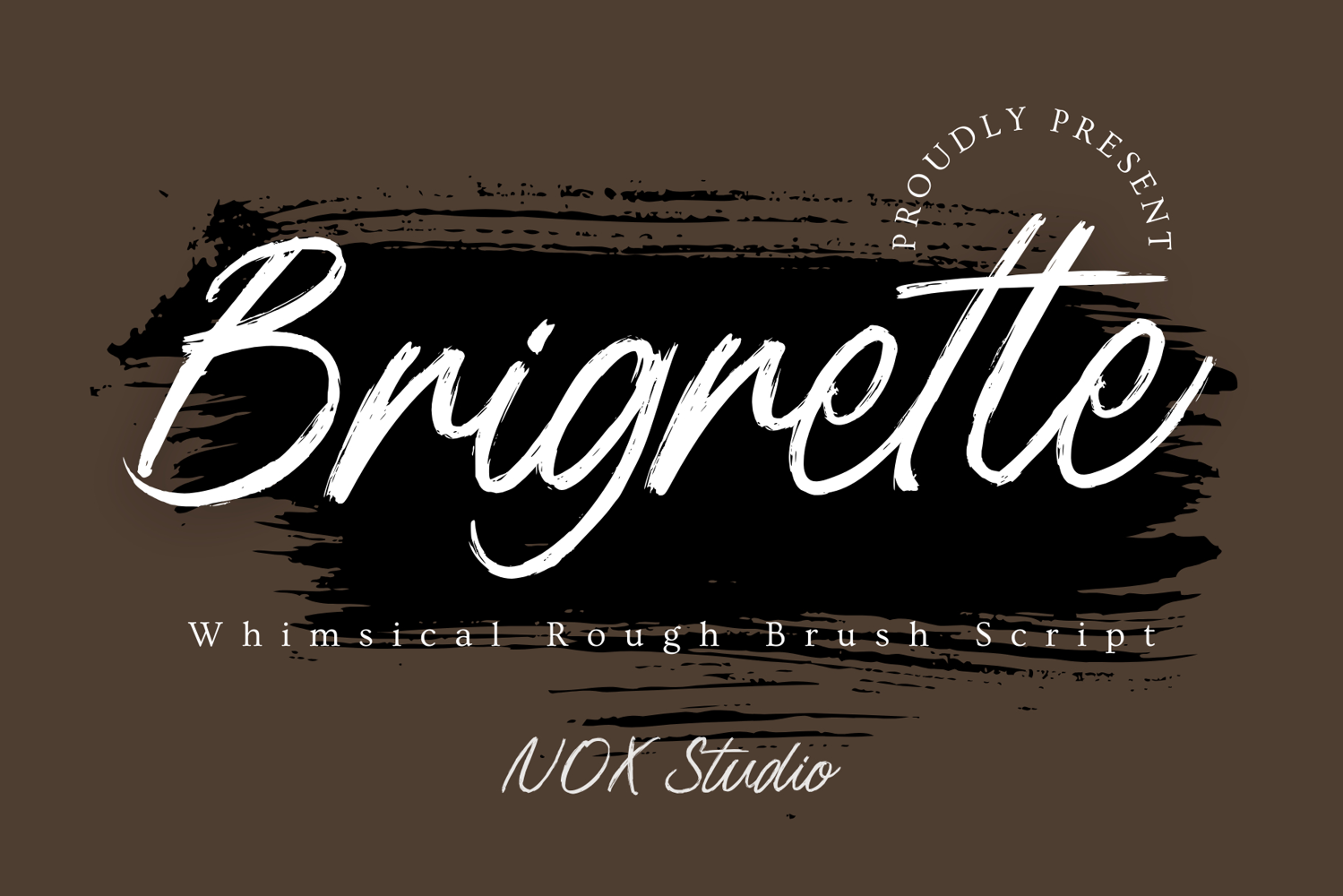
Created By Nox Studio
Brigrette
Brigrette is a soft handwritten script font with a warm, elegant, and cozy feel. Inspired by coffee moments, gentle emotions, and everyday happiness, Brigrette flows naturally with smooth strokes and balanced curves.
This font is perfect for quotes, coffee branding, logos, social media posts, packaging, invitations, and lifestyle designs.